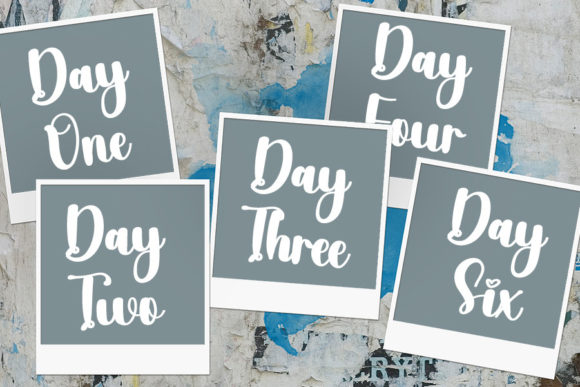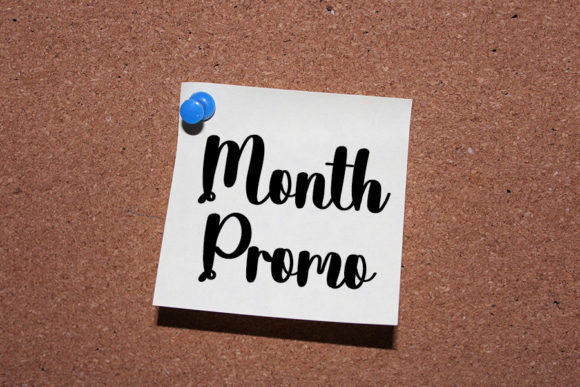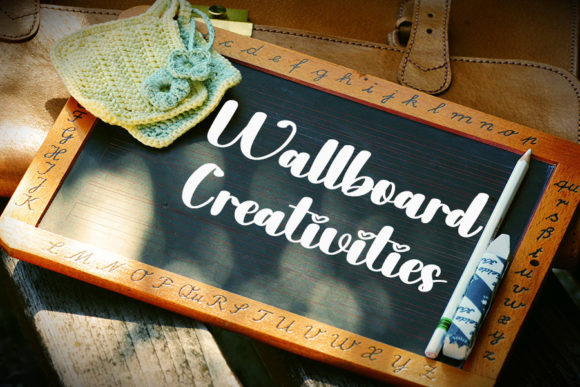
About Handpick Font
Introducing Handpick, a stylish handwritten font that exudes a contemporary atmosphere while embracing impeccable form. Inspired by timeless classic calligraphy, this font is a harmonious blend of sophistication and modernity. Handpick is meticulously crafted to bring balance and variety to your projects, enhancing their overall beauty with its distinctive charm.
The handwritten style of Handpick adds a personal and authentic touch to your designs. Each letter is carefully shaped to maintain a sense of elegance, making it suitable for a range of creative applications. Whether you’re working on invitations, branding, or any other project that requires a stylish and refined aesthetic, Handpick is designed to elevate the visual appeal.
The contemporary atmosphere of Handpick makes it versatile, adapting seamlessly to various design contexts. Its balanced and varied letterforms create a dynamic yet cohesive look, ensuring that your projects stand out with sophistication. This font becomes a timeless choice that transcends trends, adding a touch of class to your creative endeavors.
Immerse your projects in the inspired elegance of Handpick, and witness how its impeccable form enhances the overall beauty. Whether you’re creating branding materials, promotional content, or any design that demands a stylish and handwritten feel, Handpick is your go-to font for achieving a perfect balance between classic and modern aesthetics.
In summary, Handpick is more than just a font; it’s a design companion that brings a timeless and stylish touch to your projects. With its contemporary atmosphere, impeccable form, and inspiration drawn from classic calligraphy, Handpick is a versatile and sophisticated choice for designers seeking to enhance the beauty of their creations.